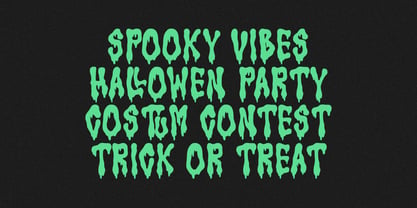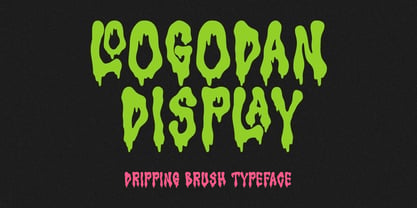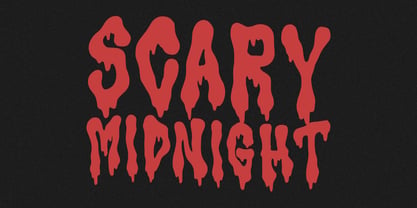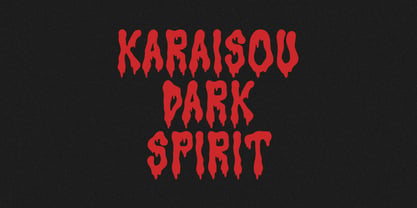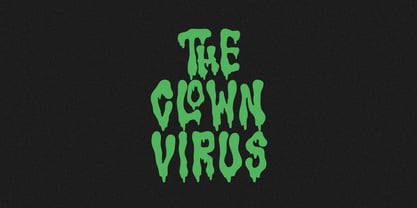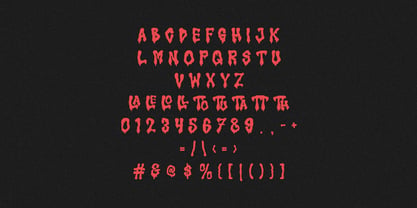
MC Loogodan
by Maulana Creative
The MC Loogodan Font Family was designed by Gilang Maulana and published by Maulana Creative. MC Loogodan contains 1 styles. More about this family
Loogodan Display is a striking all-caps typeface characterized by its dramatic, dripping brush style, making it perfect for evoking a spooky, grungy, or playful horror aesthetic. This bold, hand-drawn font features heavy, melted, or slime-like drips that extend from the characters, making it an excellent choice for impactful headlines, events, logos, and products. It is particularly suited for themes related to Halloween, horror movies, monster motifs, or edgy street art. The font includes a complete uppercase alphabet, numbers, punctuation, and various ligature styles, providing versatility for a wide range of creative projects. Whether you're designing for a "Scary Midnight" event, a "Spooky Vibes Halloween Party," or a quirky brand, the Loogodan Display typeface ensures a visceral, high-impact visual statement that captures attention and enhances your design.
Designers: Gilang Maulana
Foundry: Maulana Creative